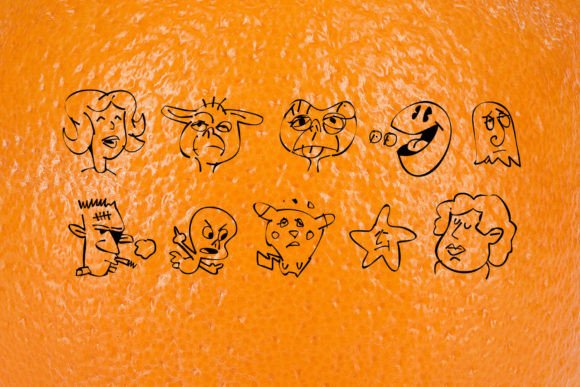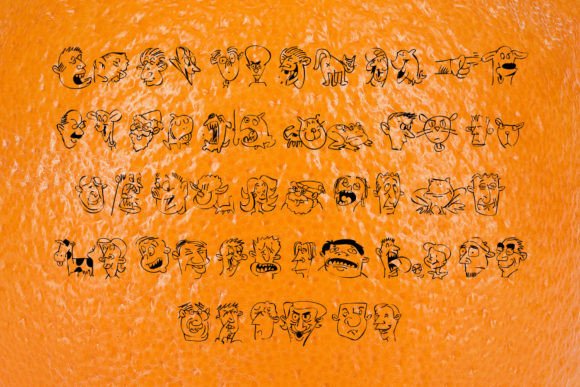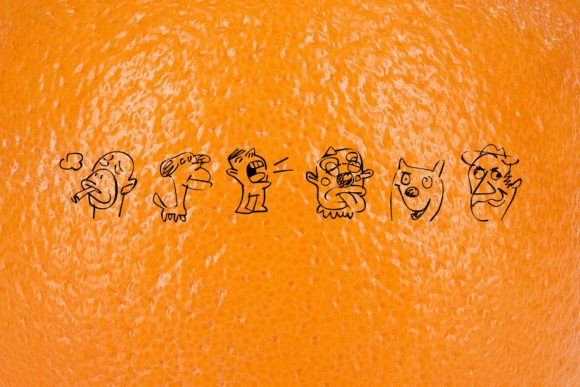
Introduction to Sappy Faces Font
Sappy Faces is a fun and silly dingbats font.
Due to its unique characters, this font would make your projects quirky, fun, and original nonetheless .
Key Features of Sappy Faces Font